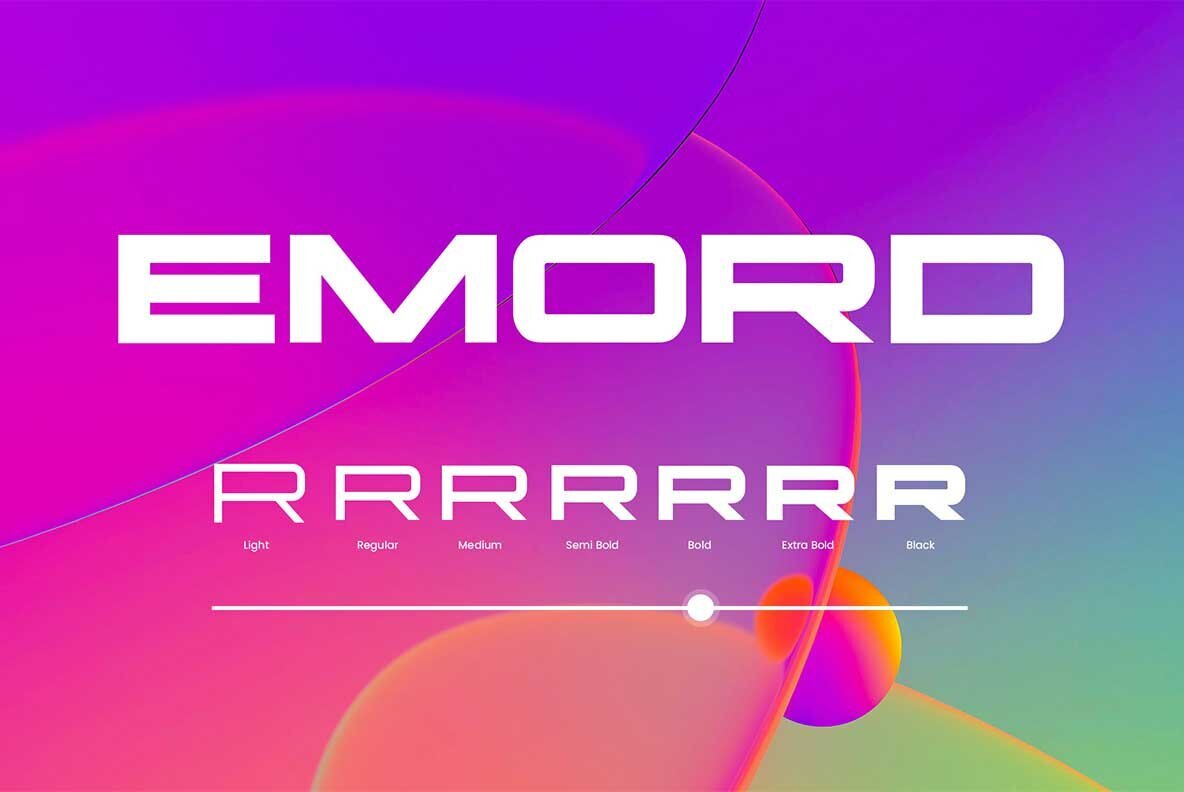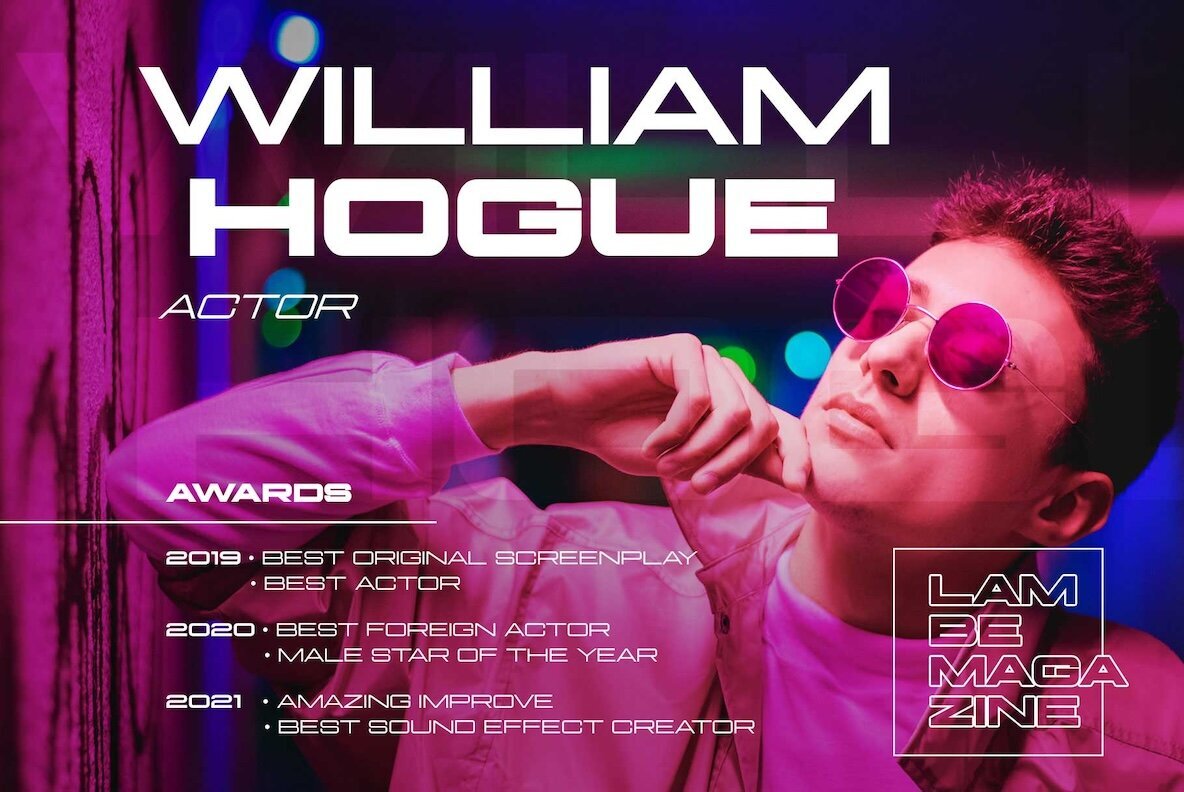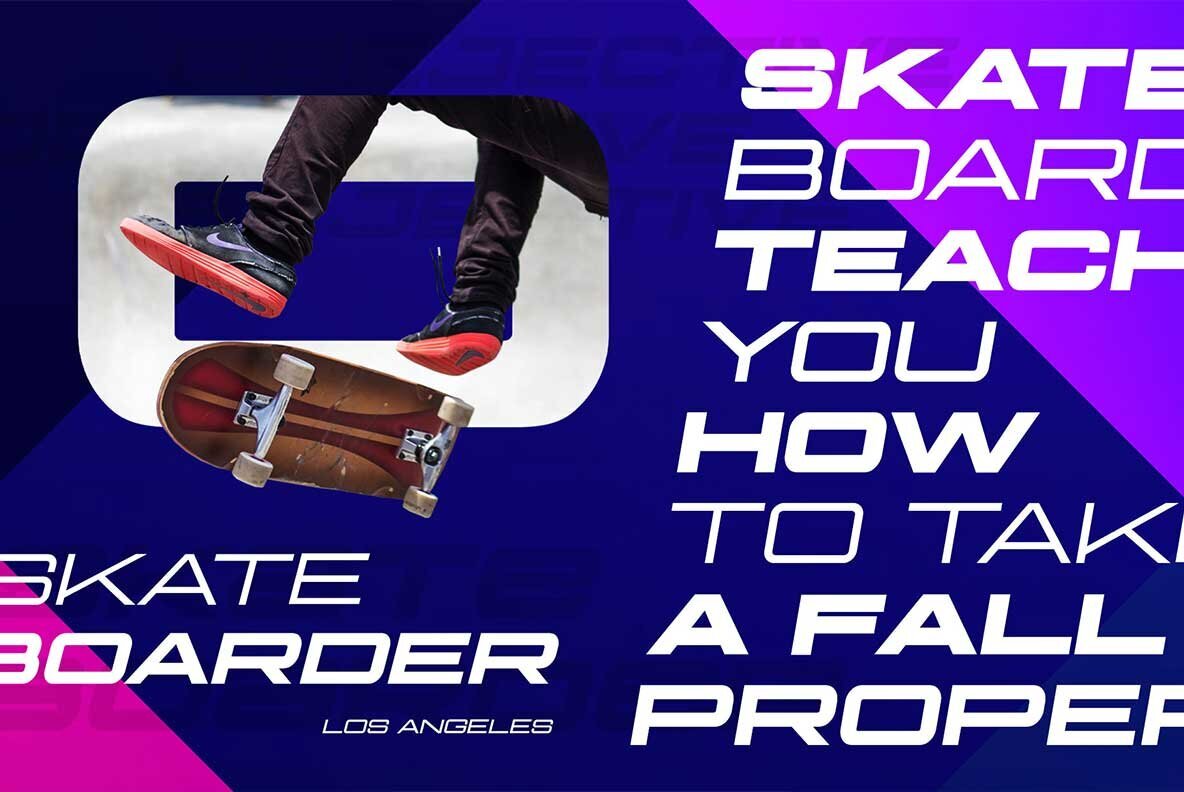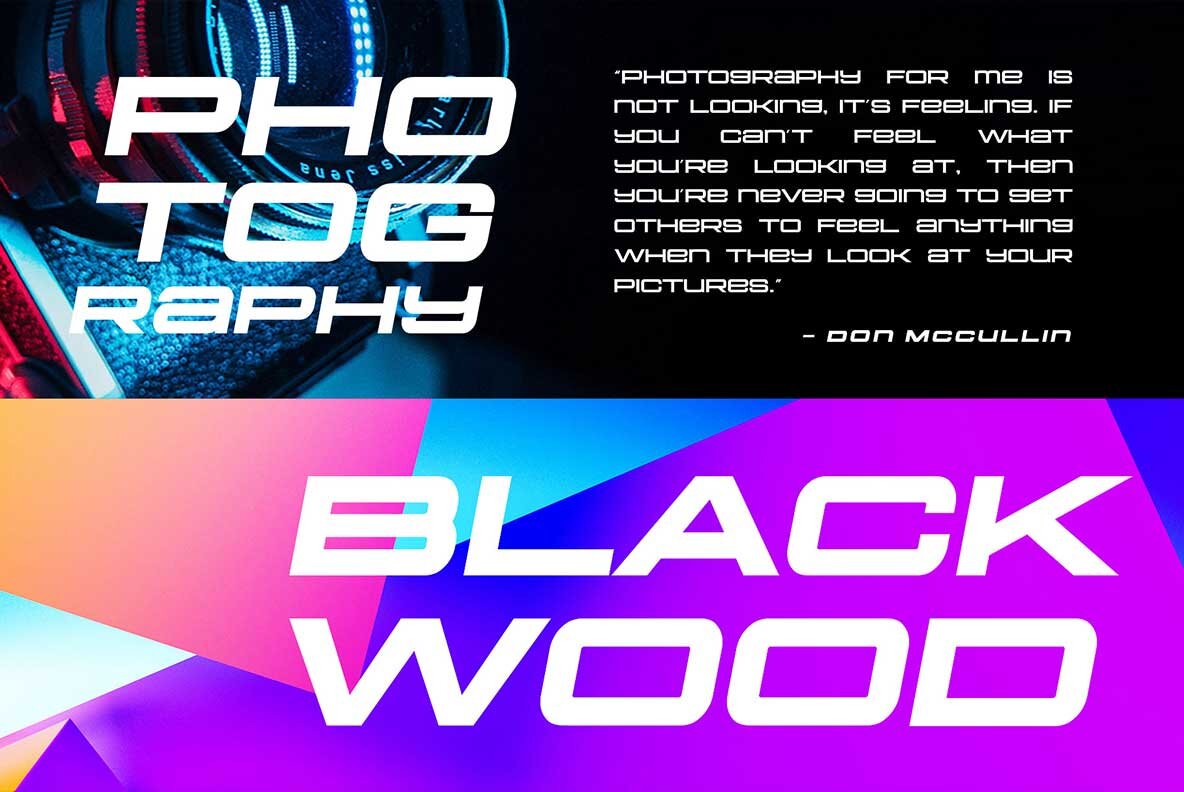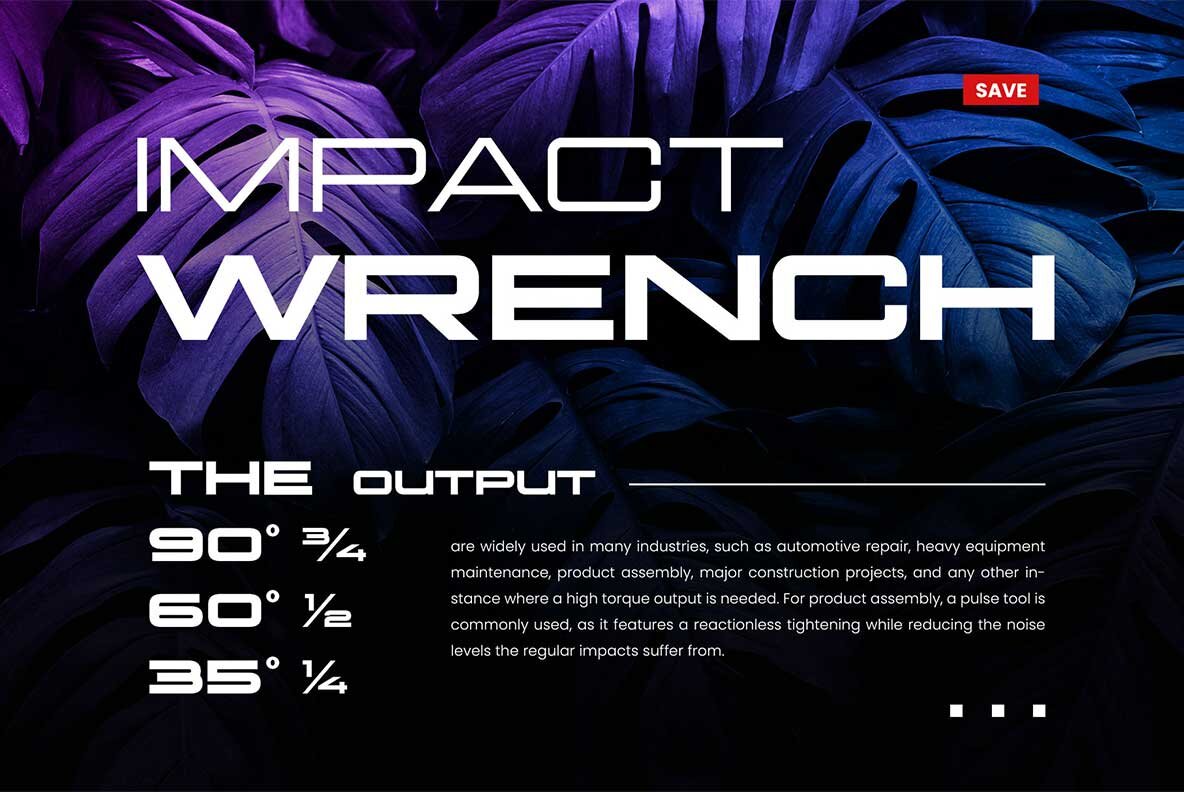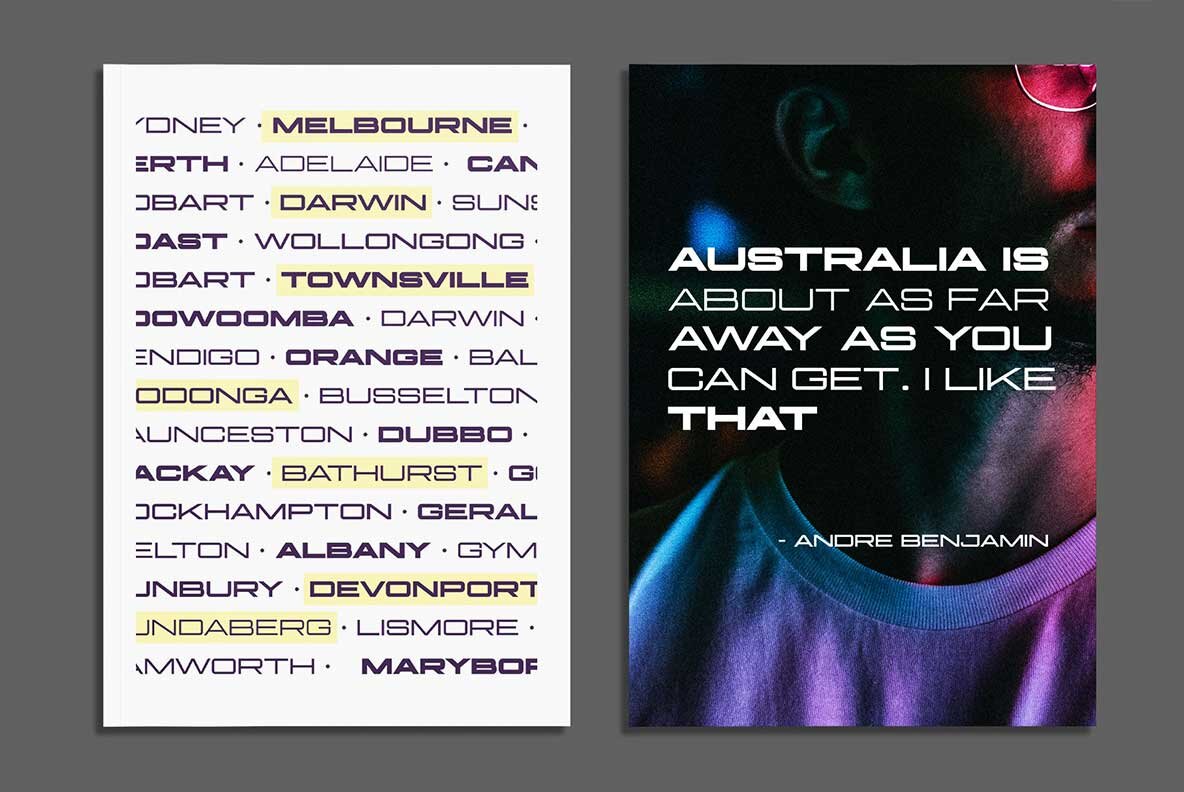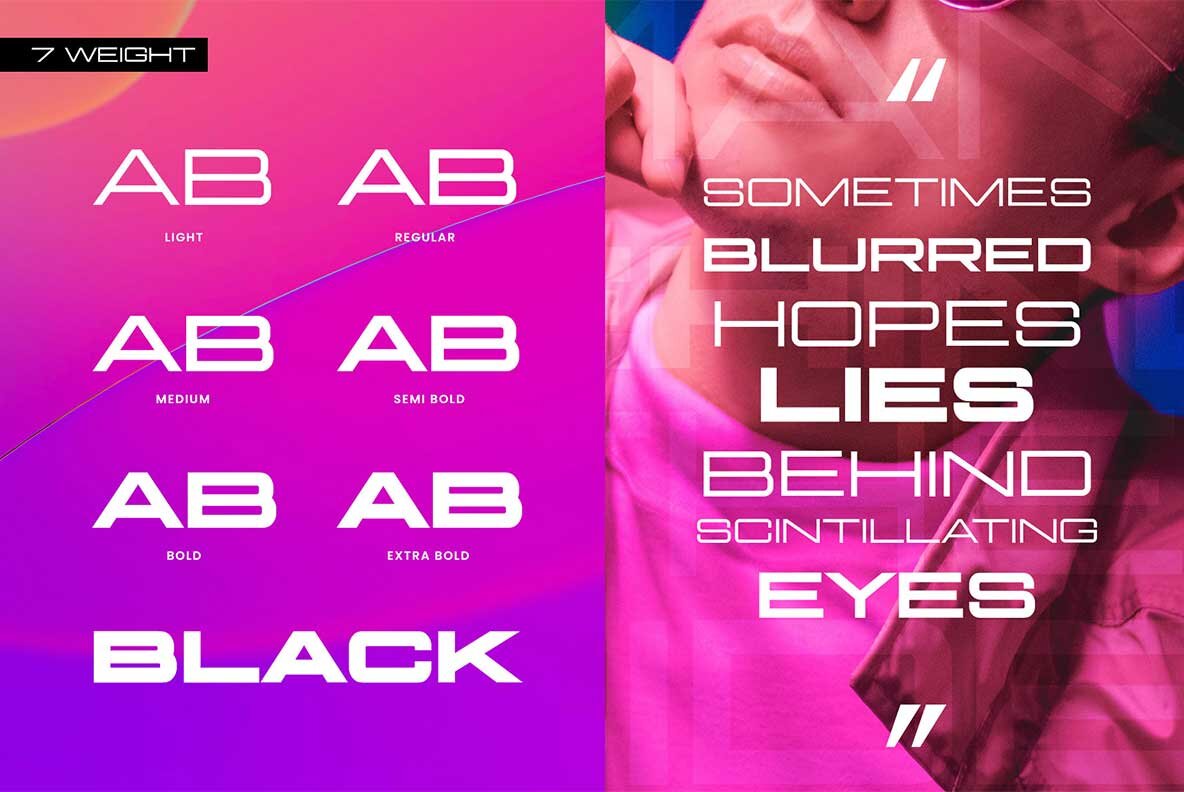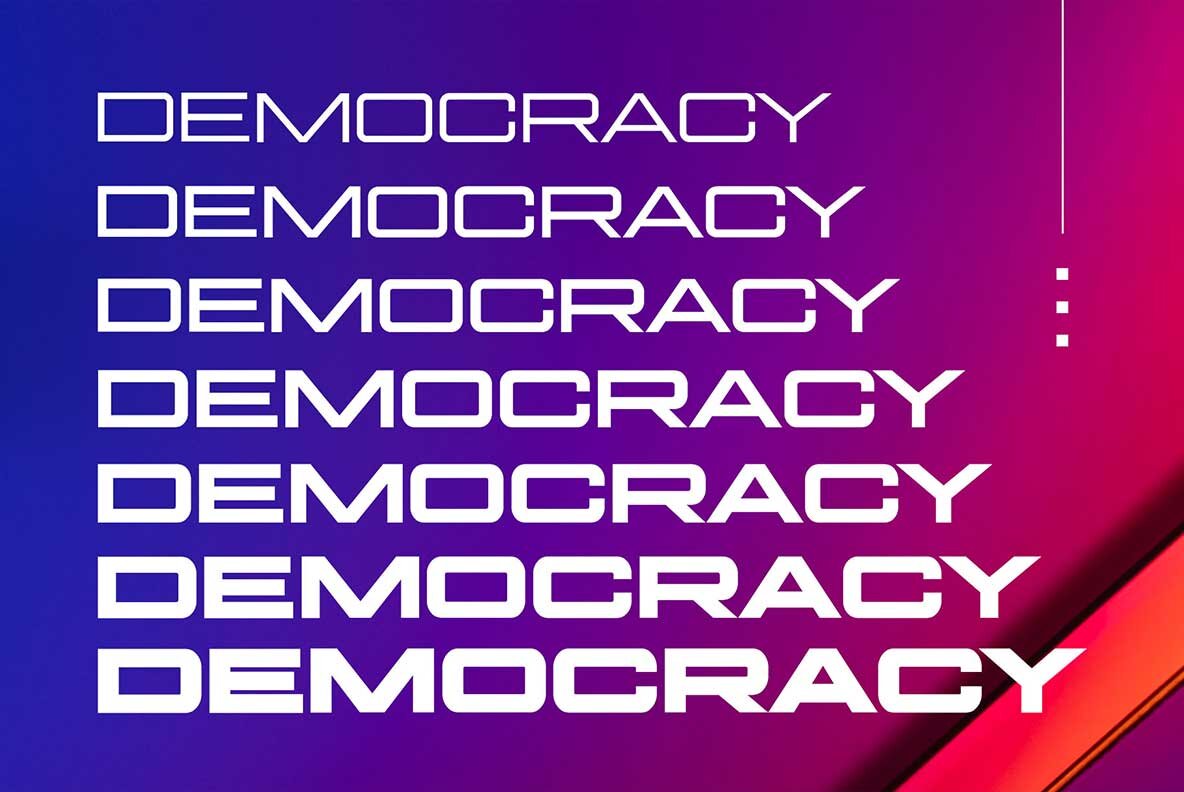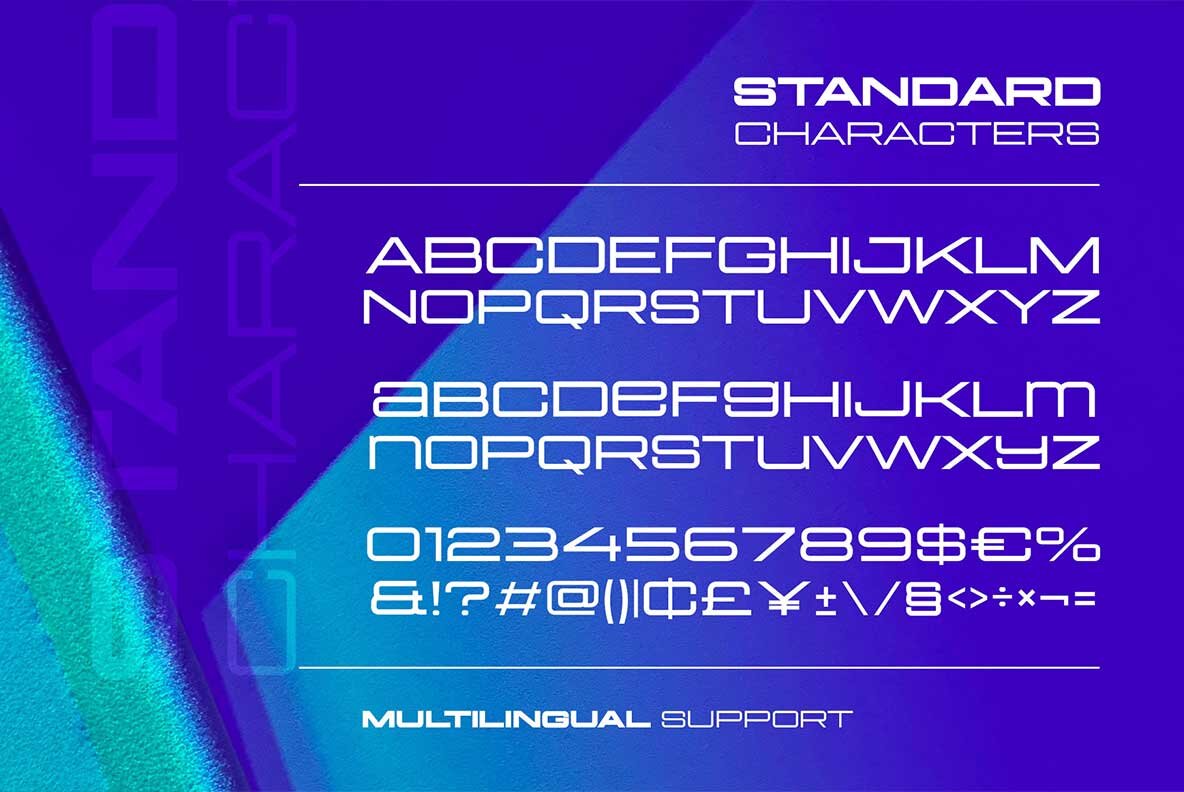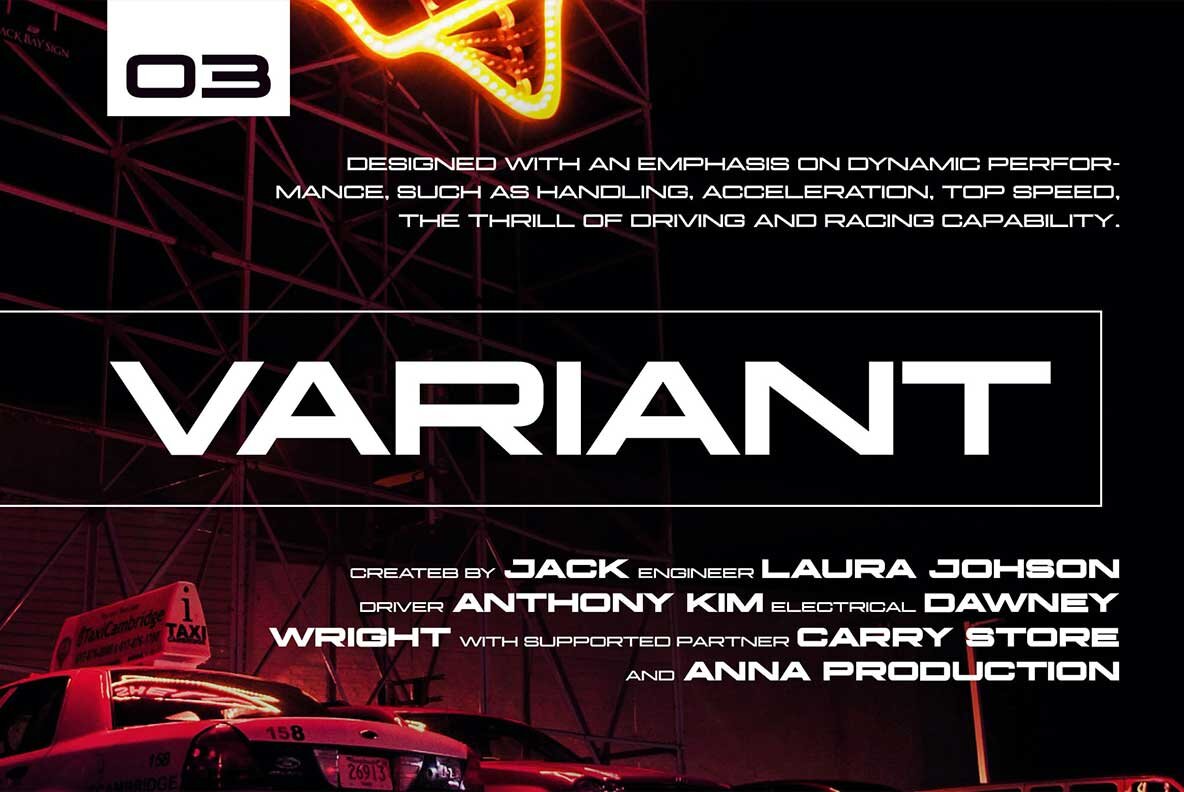
Emord Font
Introducing Emord, a dynamic display font family inspired by cutting-edge techno-style design. With its robust letterforms, it captures the essence of futuristic elegance and strength. Emord offers versatility as both a display and paragraph font, making it ideal for a variety of applications. This all-caps font is perfect for titles, short body text, books, quotes, and logotypes. Each weight includes a comprehensive set of capital characters, numbers, punctuation, symbols, and multilingual support. Choose Emord to bring a sleek yet powerful statement to your designs.Emord Display Font